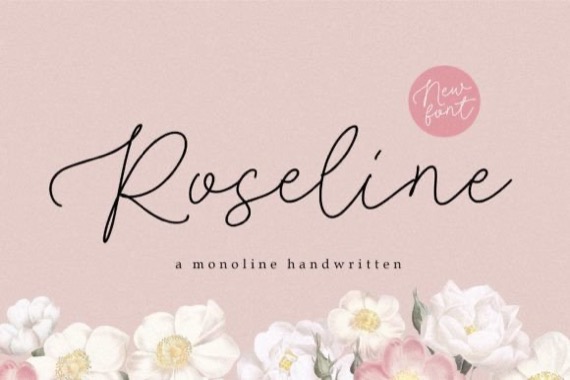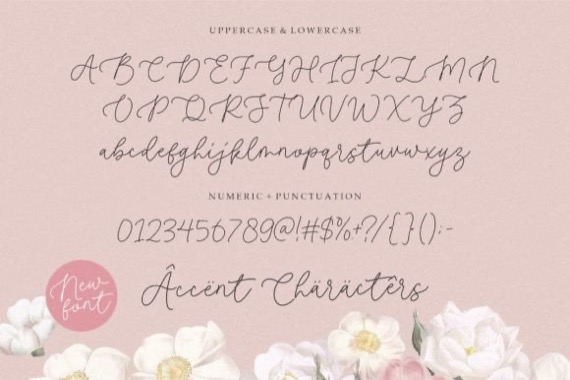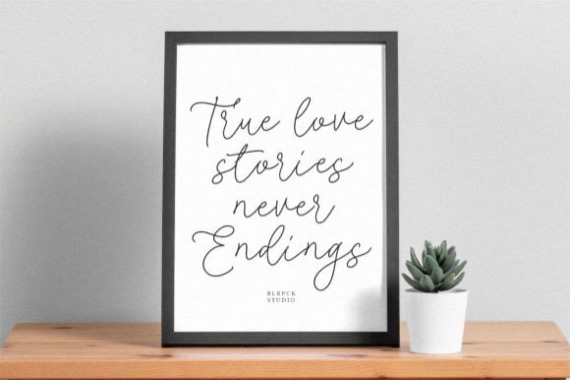
Roseline is a chic and classy monoline handwritten font that was created and shared by Balpirick. It’s clean, elegant and perfect for a range of design projects! With its smooth, effortless lines and understated sophistication, this font is the perfect choice for those who want a modern look that’s still timeless in its appeal.
Roseline Handwritten Script Font